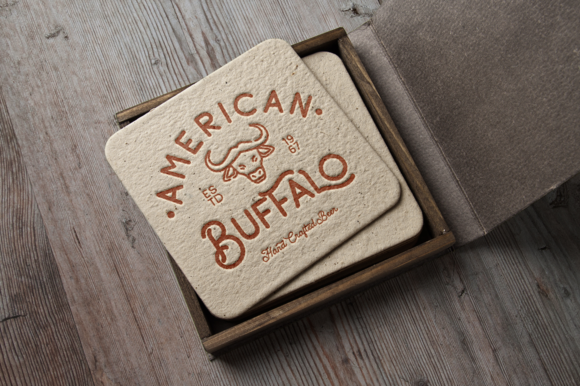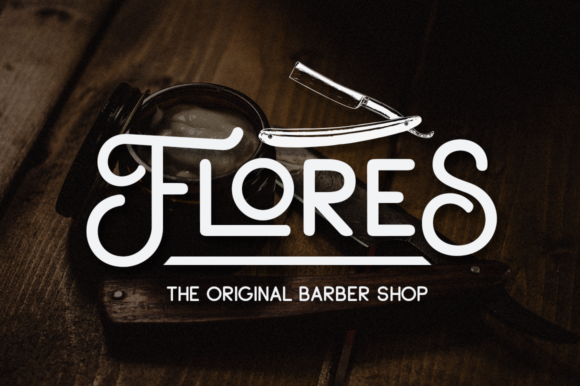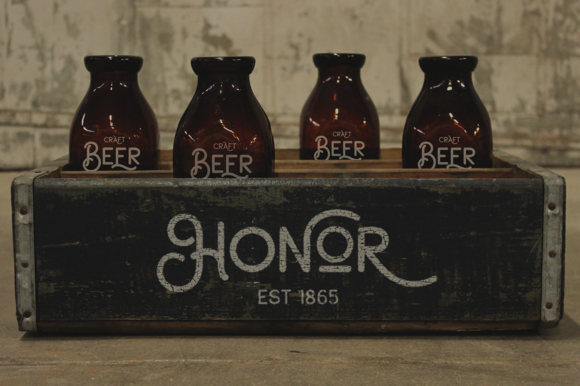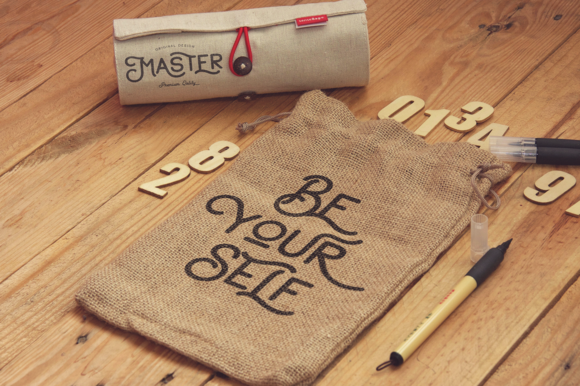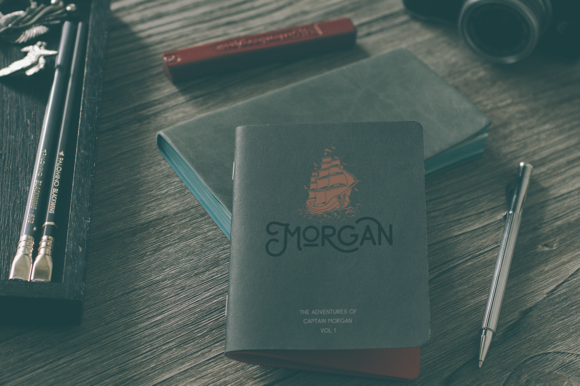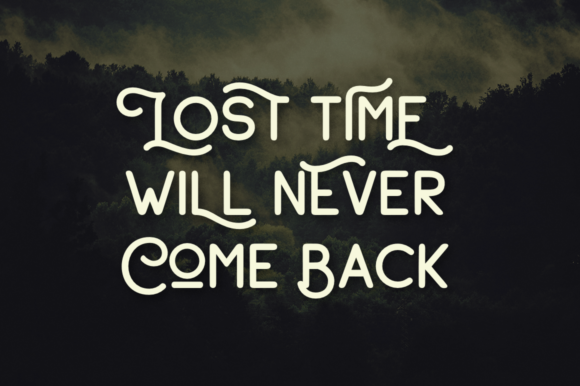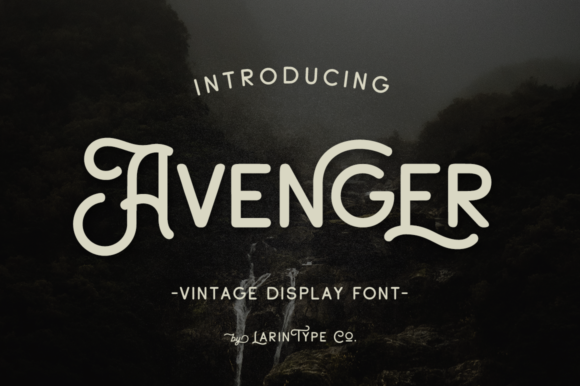
Avenger Font: Elevate Your Designs with a Bold and Charming Vintage Flair
Are you a designer or crafter looking to add a touch of nostalgia and sophistication to your creative projects? Look no further than the Avenger Font, a bold and charming display font that’s sure to make a statement. With its distinct vintage feel, Avenger Font is the perfect choice for anyone seeking to add a dash of classic style to their designs.
What is Avenger Font?
Avenger Font is a carefully crafted display font that’s designed to evoke the spirit of a bygone era. Its bold and charming aesthetic makes it perfect for use in a variety of creative projects, from branding and advertising to packaging and signage. Whether you’re looking to create a retro-inspired logo or simply want to add a touch of vintage flair to your designs, Avenger Font is the perfect choice.
Key Features of Avenger Font
So what sets Avenger Font apart from other display fonts on the market? Here are just a few of its key features:
- Bold and charming aesthetic: Avenger Font boasts a bold and charming aesthetic that’s sure to turn heads. Its unique blend of classic and modern elements makes it perfect for designers and crafters looking to create eye-catching designs.
- Distinct vintage feel: With its classic lines and elegant curves, Avenger Font has a distinct vintage feel that’s sure to add a touch of nostalgia to any design.
- Highly versatile: Whether you’re designing a logo, creating a poster, or crafting a social media graphic, Avenger Font is highly versatile and can be used in a wide range of creative projects.
- Easily readable: Despite its bold aesthetic, Avenger Font is surprisingly easy to read, making it perfect for use in designs where clarity is key.
How to Use Avenger Font in Your Designs
So how can you use Avenger Font in your designs? Here are a few ideas to get you started:
- Create a vintage-inspired logo: Use Avenger Font to create a bold and eye-catching logo that’s sure to make a statement.
- Add a touch of nostalgia to your packaging: Whether you’re designing a label, a brochure, or a product package, Avenger Font is the perfect choice for adding a touch of vintage flair.
- Design a retro-style poster: With its bold aesthetic and classic lines, Avenger Font is perfect for creating eye-catching posters that evoke the spirit of a bygone era.
- Craft a stylish social media graphic: Use Avenger Font to add a touch of sophistication and elegance to your social media graphics.
Tips for Getting the Most Out of Avenger Font
Here are a few tips for getting the most out of Avenger Font:
- Experiment with different colors: Avenger Font looks great in a wide range of colors, so don’t be afraid to experiment and find the perfect hue for your design.
- Play with font sizes: Avenger Font is highly versatile and can be used at a wide range of font sizes, from large and bold to small and elegant.
- Combine with other fonts: Avenger Font pairs well with a wide range of other fonts, so don’t be afraid to experiment and find the perfect combination for your design.
| Author | Pasha Larin |
Avenger Font is a bold and charming display font that’s perfect for designers and crafters looking to add a touch of vintage flair to their creative projects. With its distinct vintage feel, highly versatile aesthetic, and easily readable design, Avenger Font is the perfect choice for anyone seeking to elevate their designs and make a statement. So why wait? Download Avenger Font today and start creating stunning designs that evoke the spirit of a bygone era!